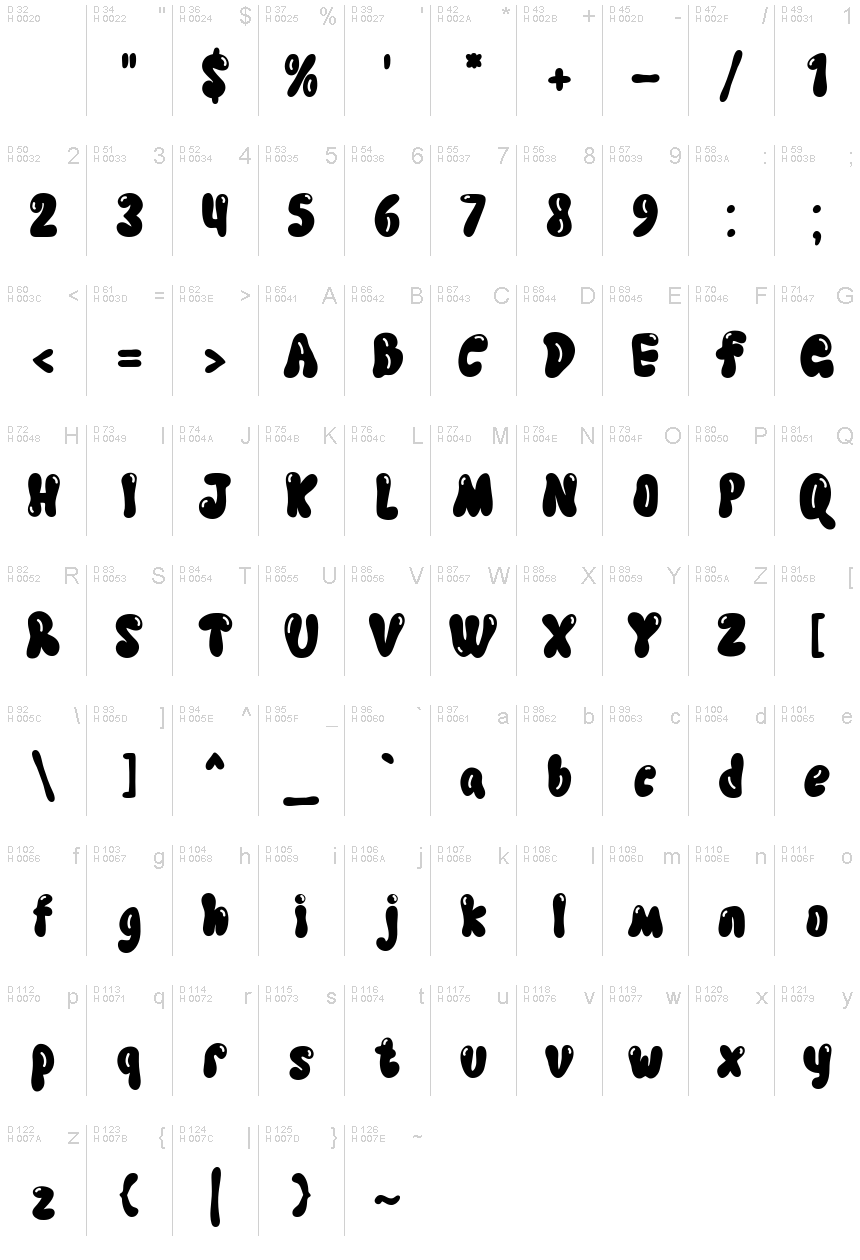
Psycila - Demo
Psycila, a bold and groovy display font crafted by Tera Asset Garage, exudes an undeniable sense of energy and dynamism. Its distinct letterforms, with their playful curves and organic fluidity, create an eye-catching and impactful visual presence. This font's unique aesthetic invokes a sense of retro-futuristic charm, seamlessly blending classic and contemporary design elements.
Psycila's versatility makes it a compelling choice for a wide range of design applications, from eye-catching event posters and album covers to captivating branding and packaging designs. Its bold and attention-grabbing nature lends itself particularly well to projects that require a strong, memorable visual impact, making it an excellent selection for creating striking headlines, logos, and other high-visibility design elements.